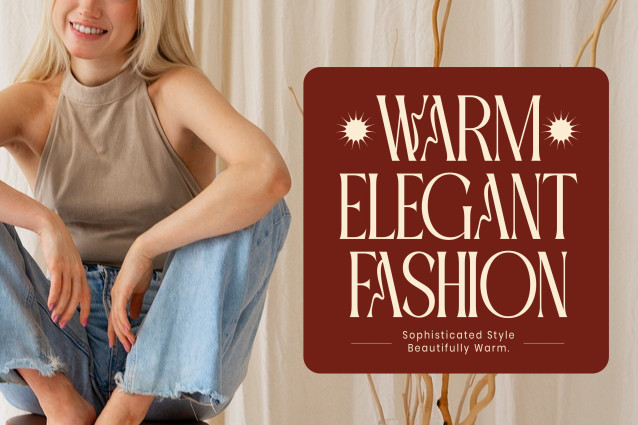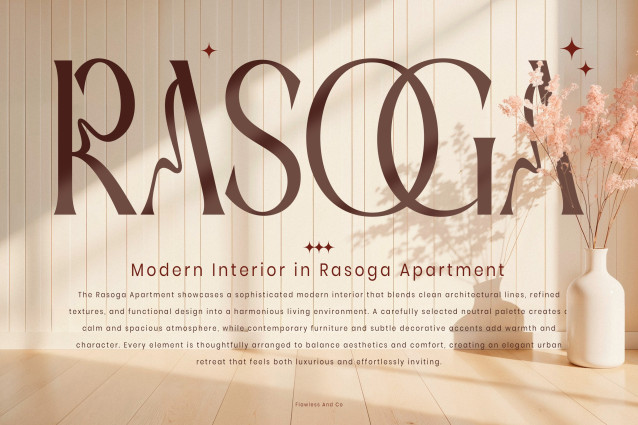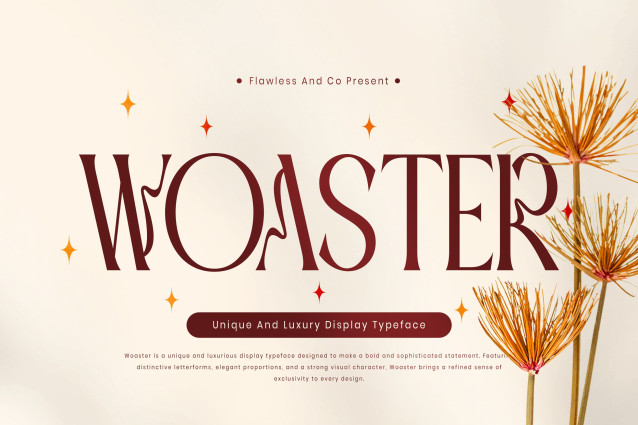
Woaster – Luxury Display Font
Woaster is a luxurious display font that blends sophisticated typography with a distinctive visual character. Designed with elegant proportions, dramatic contrasts, and beautifully refined curves, Woaster creates an instantly premium impression. Its unique letterforms give the typeface a fashionable and artistic quality, making every word feel carefully crafted and visually captivating.